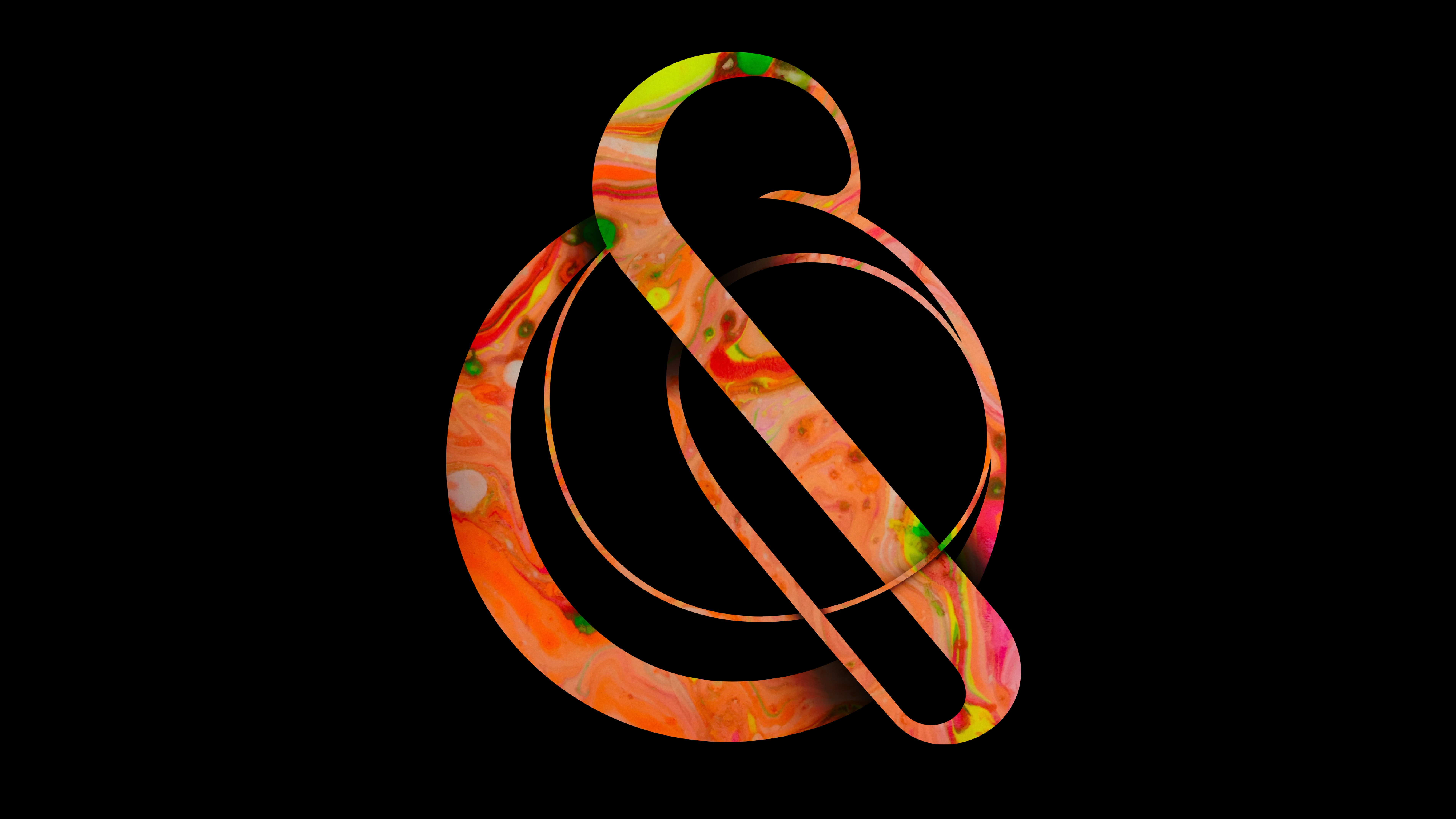
F37 Marbles
Getting a much deserved second lease on life is this beautifully intricate experimental display typeface from Superfried.
At first glance the fluid internal structure of the font is immediately intriguing, a feature inspired by the the complex patterning of marbles. Originally an unused design concept, F37 Marbles has been in development since 2015. Too good to discard, Superfried continued to improve the idea to where it is now — available in two styles, Simple and Complex. The Complex style is the more dynamic of the pair, with its elaborate marbling, it is ideal for large use. The Simple style is paired back, perfect for smaller uses. Within each style there are also two versions of each letter accessed via the upper or lowercase keys, allowing for more complex and versatile arrangements of the letters.
F37 Marbles
Complex
Simple
Interview
Tell us about the inspiration behind your collaboration with F37®×. If it was an unused concept, what was the potential use case for it.
In 2016 a typographic design I proposed for a New York magazine project was rejected. I thought it had potential, so the little idea was recycled and grew into a big personal design project called Marbles. It began as an experimental set of 2D numerals. But further design experimentation led to 3D renders, a submission to the Secret 7" charity project, numerous press features, and Superfried winning a Creativepool award for typography. Marbles had taught me the power of personal projects and to never ditch a good idea. In addition to the numbers, I had also developed some of the letters for the design of a promotional Superfried sticker. But despite this, I had never imagined this typographic experiment would ever work as an actual typeface since the letterforms were so complex and eccentric. Seven years later I reached out to Rick re potential collaboration opportunities. I had been a fan of both the F37® design agency and type foundry for many years. I was unaware that F37® were in the process of developing a new offering – F37®×. Rick suggested that Marbles could be a suitable candidate. I was completely shocked, but immediately jumped at the opportunity.
When starting the process of creating your font, what typographic conventions did you look to break or experiment with? Or were there conventions of functionality you championed?
Since I had always regarded Marbles as a personal type experiment, the usual typographic conventions were never really a consideration for me. I have created 15+ experimental typefaces over the years, but I had always considered Marbles would be a step too far. However, working with F37® the usual typographic conventions that I felt would prevent font development were no longer a concern.
Now that your typeface has launched, what would be your dream project to use your F37® typeface on?
That is a tricky question. As mentioned, I have used the style for some personal work, but it would be awesome to see Marbles used for a client project. The experimental nature of the typeface would be most suitable for something rather bold, such as a lifestyle brand, magazine, or perhaps a film. However, it would be preferable for the dream project to be sustainably led in alignment with the Superfried ethos.
What have you learnt through developing and creating your own typeface(s) with our F37® type designers?
Previously, when creating typefaces it has been very challenging since I am not a typographer. Working with experts at F37® has made the experience much more enjoyable, allowing me to focus on the design rather than the technical details of typography. The process has also opened my eyes to new possibilities that I previously assumed would be impossible to achieve within a typeface.
How would you describe your typeface in three words?
Experimental . Organic . Fluid